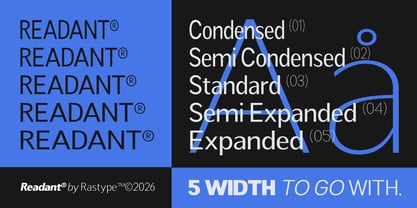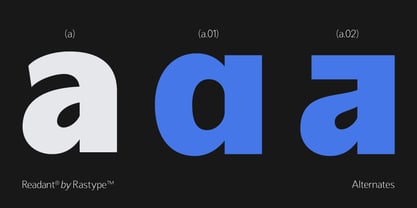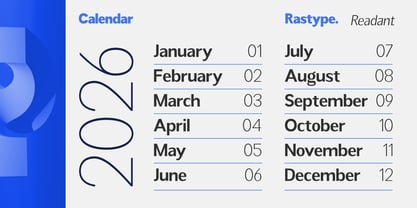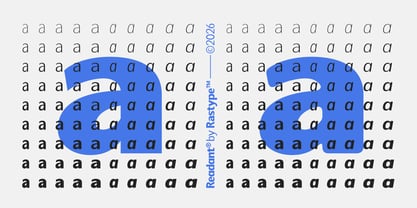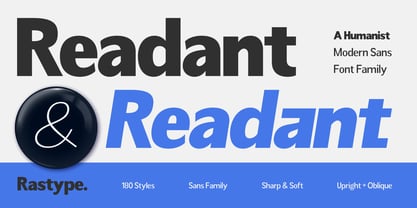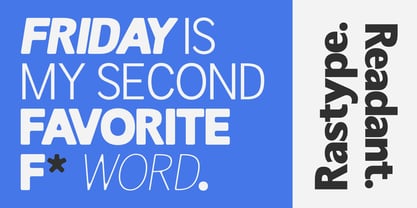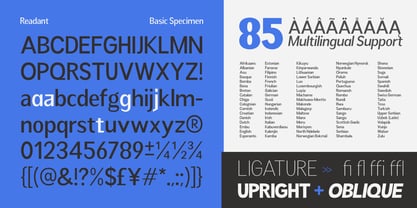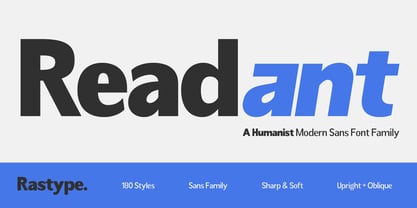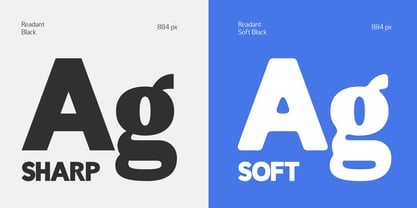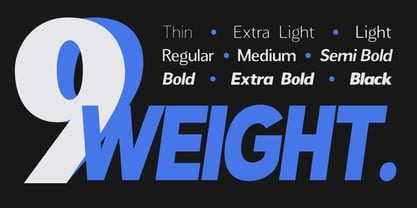
Readant
by Rastype Studio
The Readant Font Family was designed by Muhammad Taufik and published by Rastype Studio. Readant contains 182 styles and family package options.
Readant is a contemporary humanist sans serif font family that balances clarity, warmth, and versatility. Designed with refined proportions and open letterforms, Readant delivers excellent readability across print and digital environments. Its clean structure is softened by subtle humanist curves, creating a friendly yet professional tone suitable for branding, editorial layouts, UI design, advertising, and corporate communication. With 180 styles including Upright and Oblique variants, Readant offers a comprehensive range of weights and widths, allowing designers to build strong typographic hierarchies with ease. From bold headlines to refined body text, this modern sans family adapts effortlessly to creative and commercial projects alike. Carefully engineered spacing, balanced contrast, and sharp yet smooth detailing give Readant its distinctive personality — sharp when you need precision, soft when you need approachability.
Designers: Muhammad Taufik
Publisher: Rastype Studio
Foundry: Rastype Studio
Design Owner: Rastype Studio